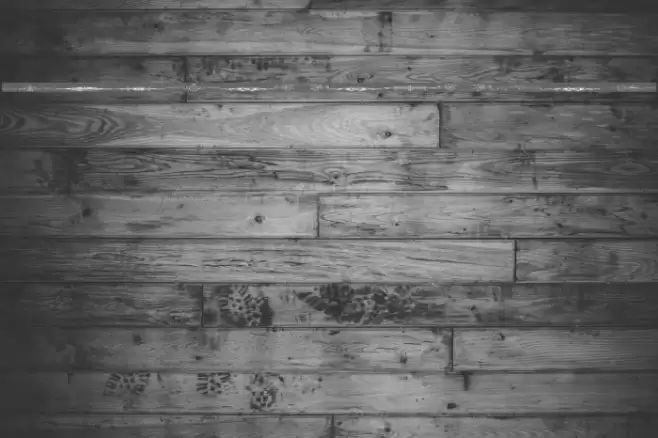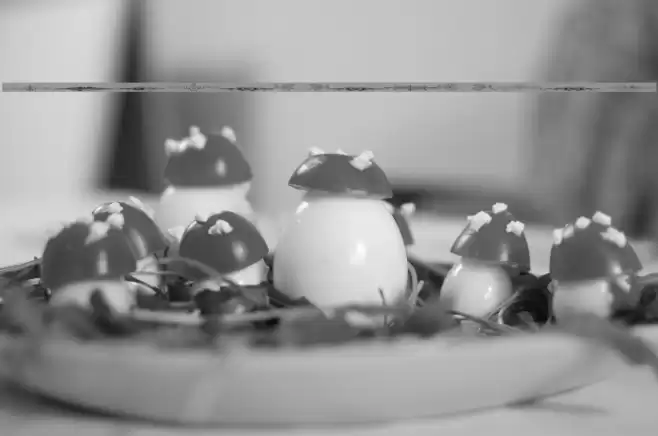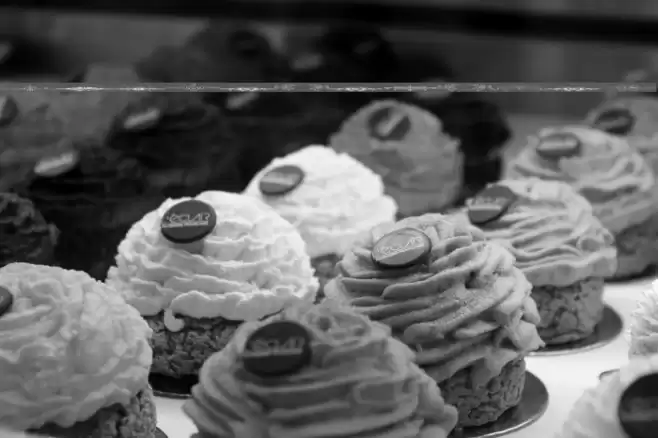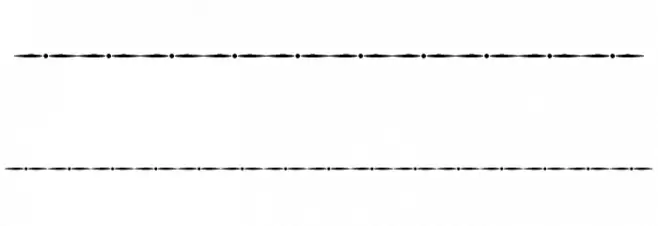
A collection of decorative horizontal line separators featuring symmetrical, ornamental patterns with varying levels of intricacy and flourish, primarily in black on a white background.
Ornamental horizontal line separators with elegant flourishes from Uncategorized fonts.
- Proposed Projects: Invitations, certificates, menus, decorative dividers in print or web design, vintage-themed layouts.
- Overall Style: Decorative, Vintage, Elegant
- Use Case: Dividers, Borders, Decorative accents